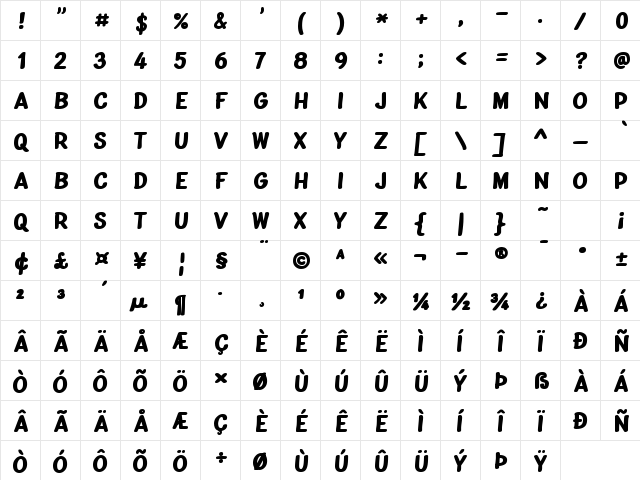
Bublina the Mongrel Regular
Design Context for Bublina the Mongrel Typeface
Bublina the Mongrel offers clean, dependable letterforms without strong stylistic allegiance, making it a practical choice for designers who need flexibility.